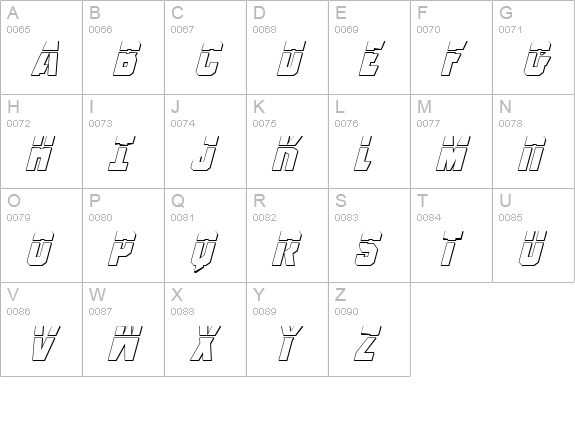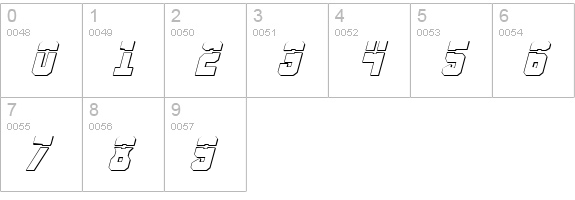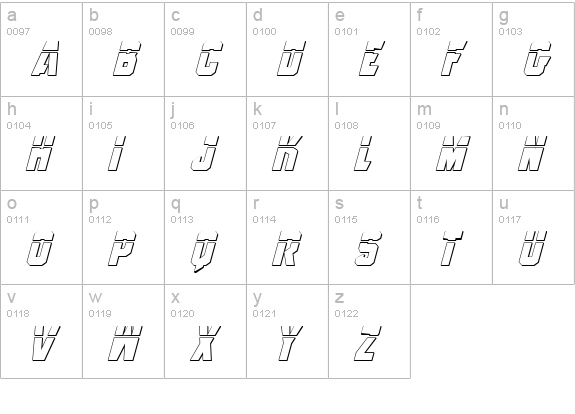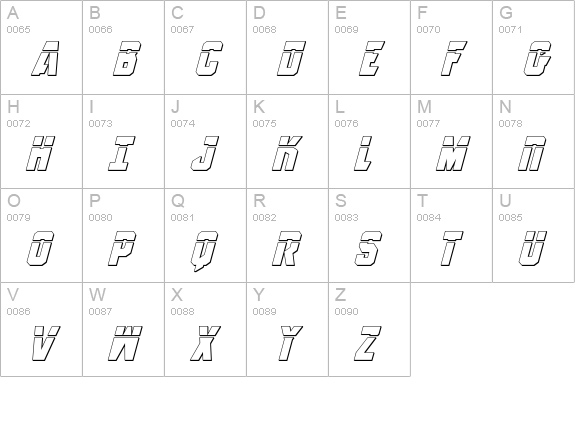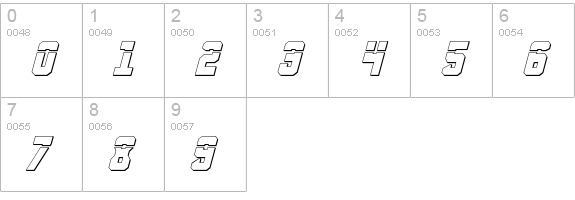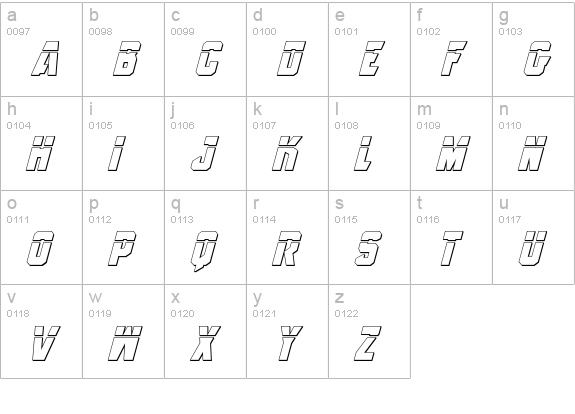
Anitlles Laser 3D Italic is a distinctive, italic variant in the Anitlles typeface family \xE2\x80\x94 well suited to design and typography projects.
The Anitlles Laser 3D Italic font is a stunning and modern typeface that brings a dynamic and futuristic feel to any design project. Its sleek and intricate 3D laser-cut design gives a unique and eye-catching appearance, making it perfect for titles, headlines, and branding materials. This font exudes a sense of sophistication and innovation, making it ideal for projects that require a touch of elegance and modernity. And the best part? The Anitlles Laser 3D Italic font is available for free download at FontsMarket.com! You can easily add this striking typeface to your collection without any cost, allowing you to elevate your designs with style and flair. Don't miss out on the opportunity to enhance your creative projects with this exceptional font – download it now and let your creativity shine!